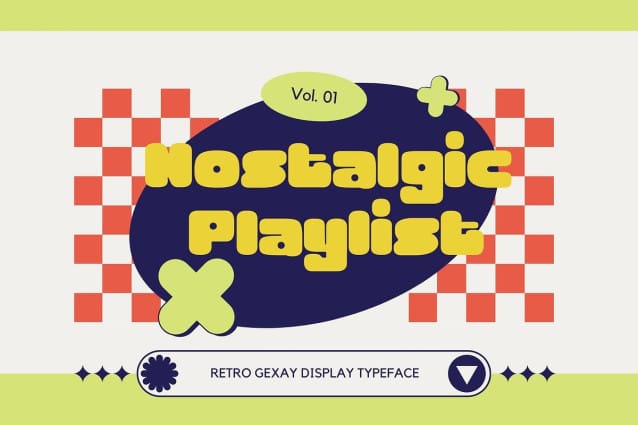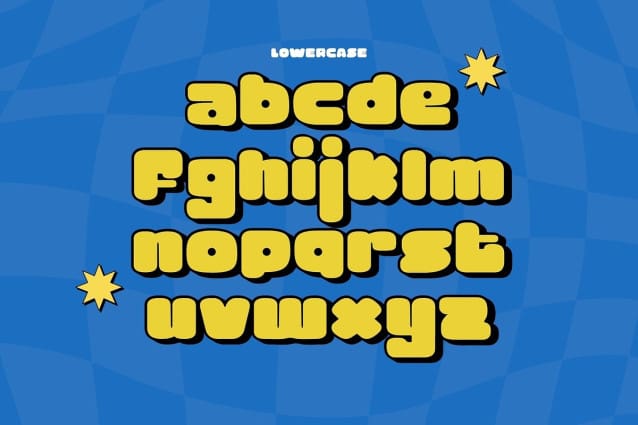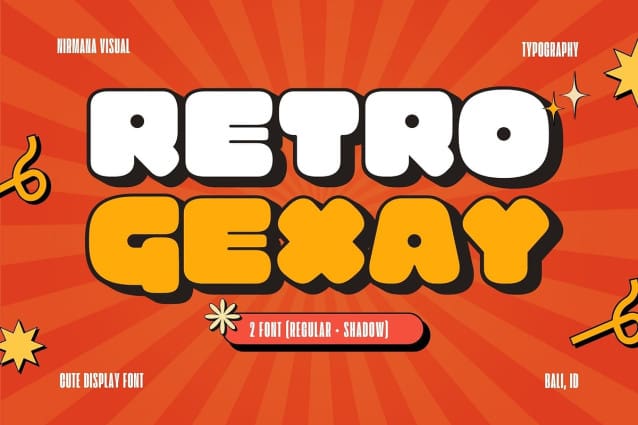
Retro Gexay Font
Retro Gexay Font, Step back in time with our Cute Retro Font theme, designed to bring a touch of nostalgic charm to your projects. This delightful typeface blends playful elements with vintage aesthetics, making it perfect for those who appreciate the whimsical side of the past. Each letter is crafted with a unique flair, combining rounded edges and vibrant styles reminiscent of the 70s and 80s.
Ideal for branding, social media graphics, posters, and children’s books, this font adds a fun, retro vibe to any design. The Cute Retro Font theme is versatile and eye-catching, ensuring that your text stands out with a personality all its own. Embrace the joy and creativity of yesteryear with this enchanting typeface that promises to captivate and charm.